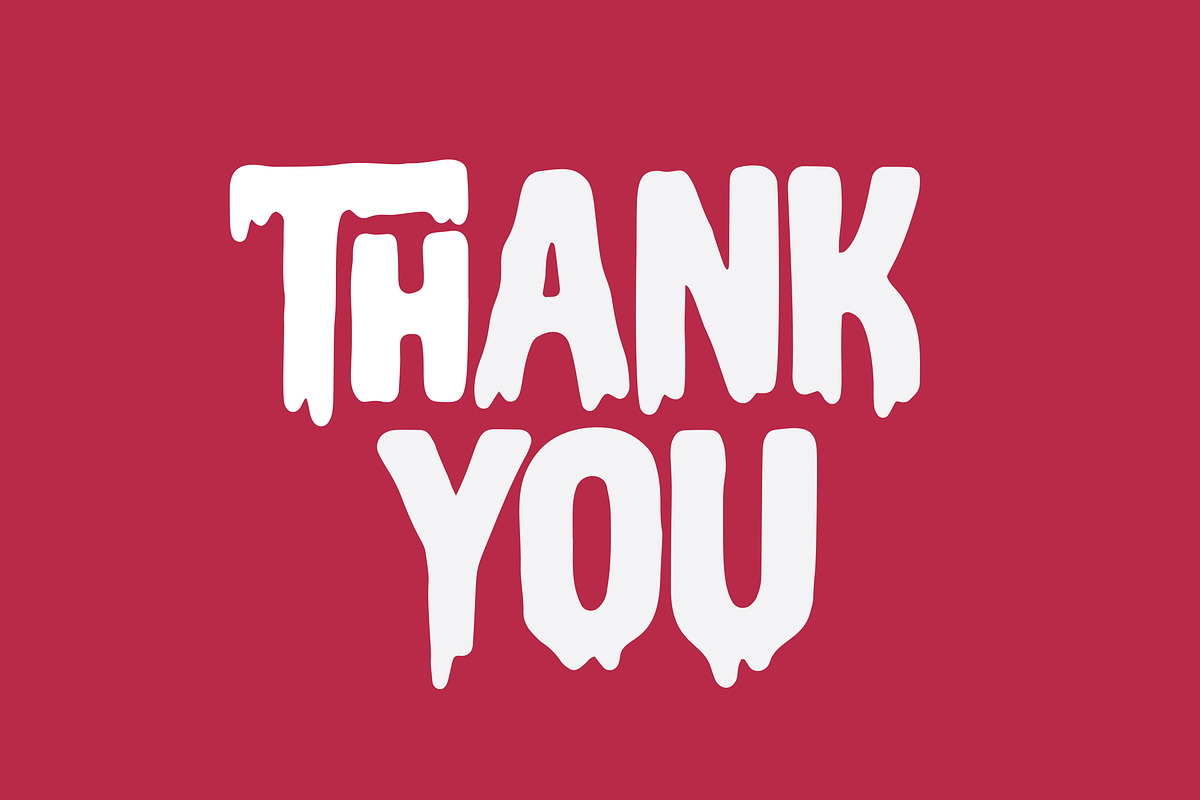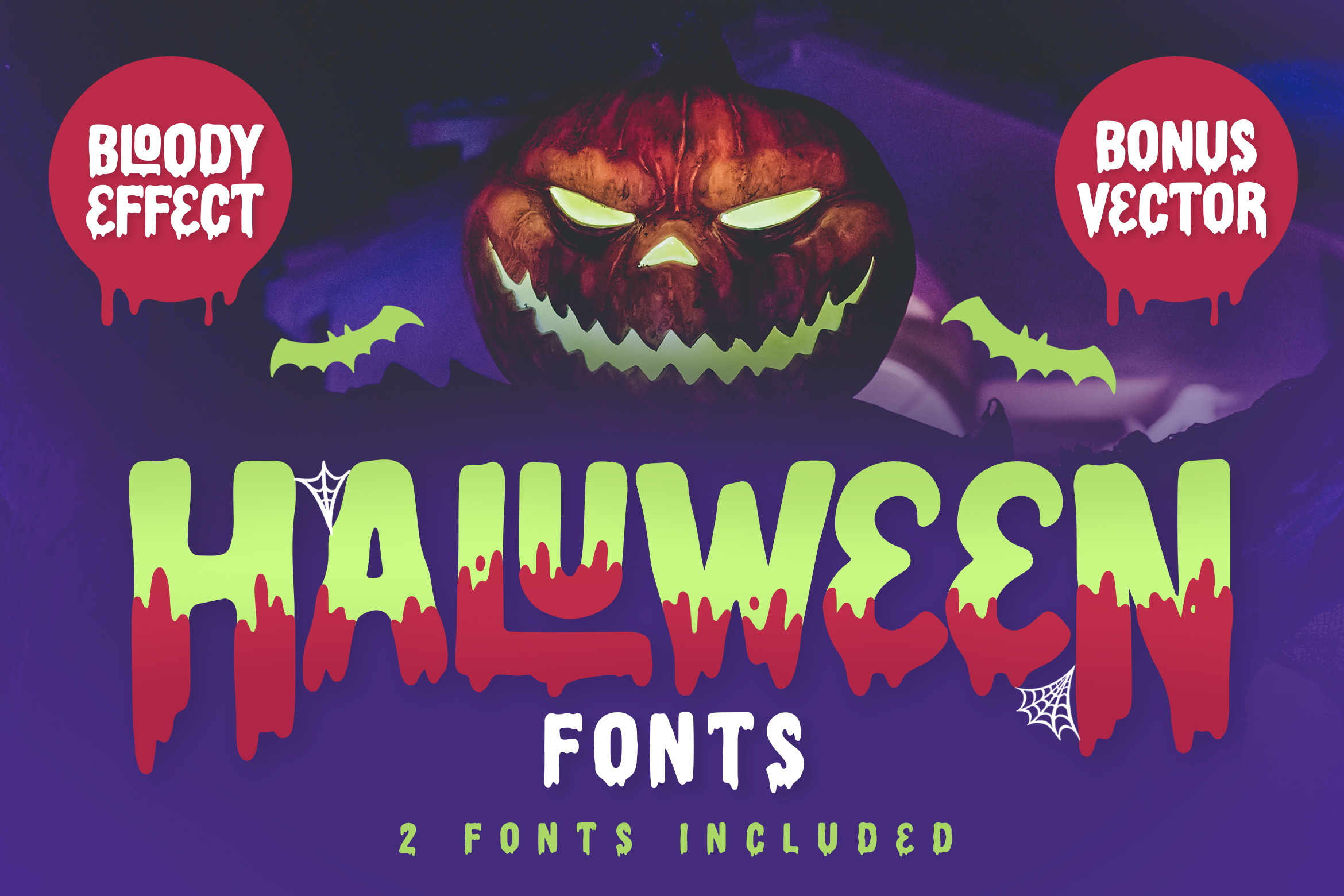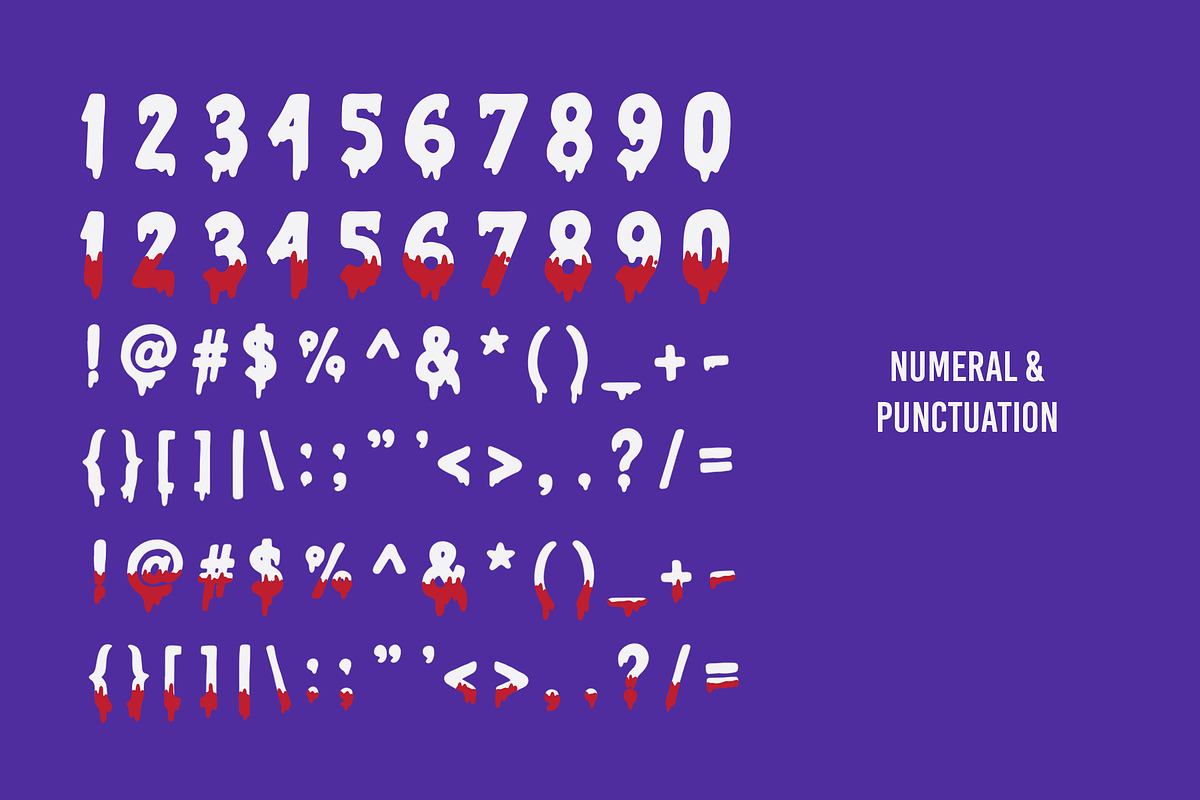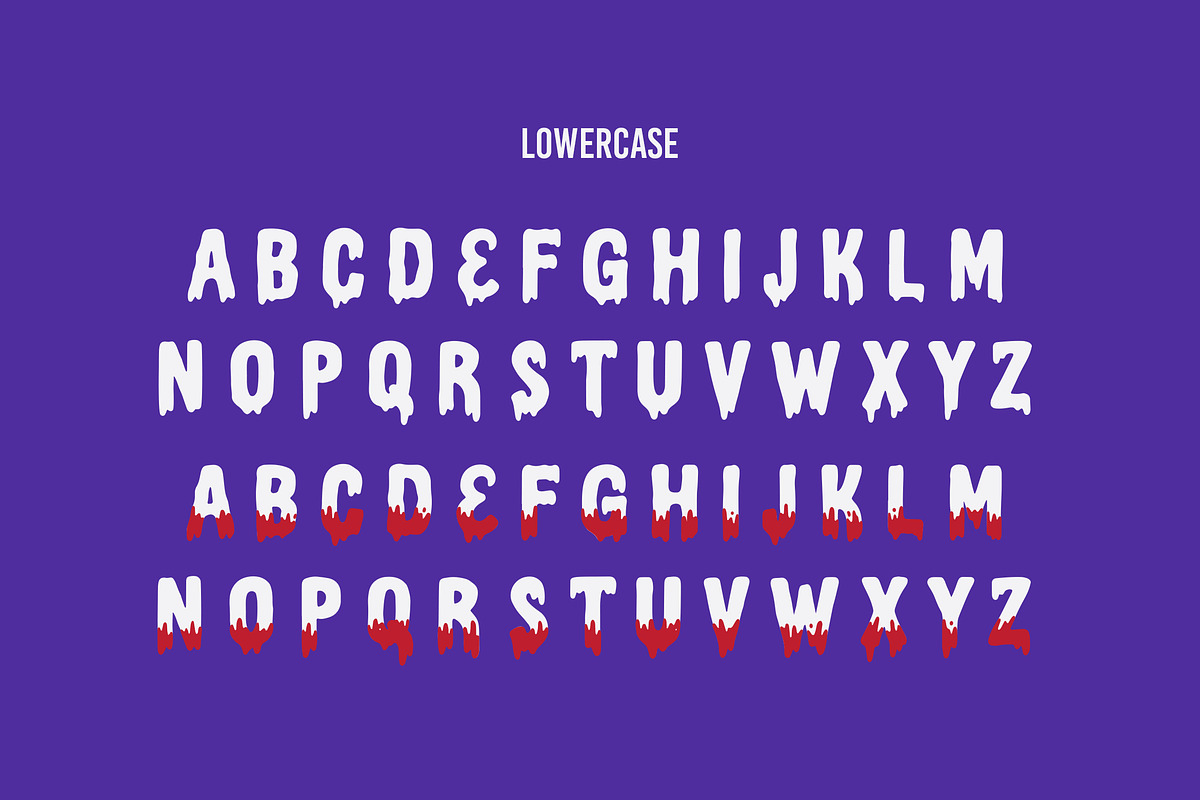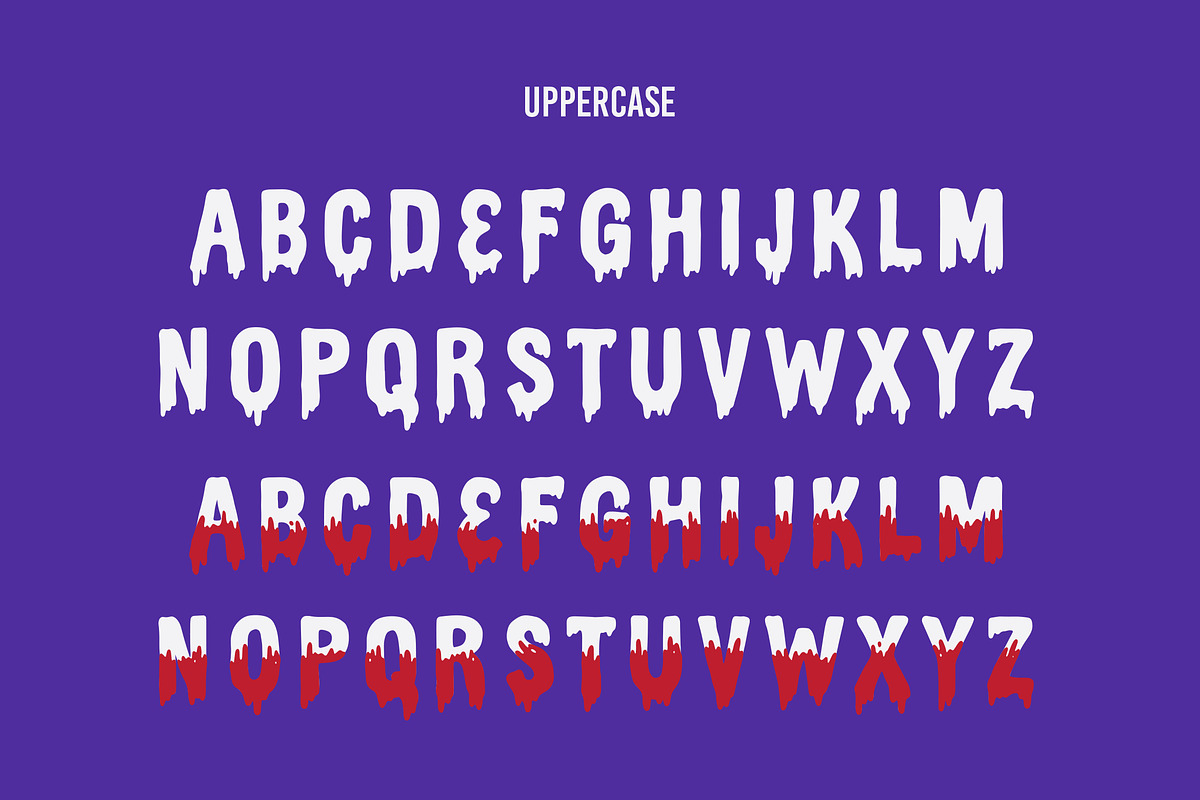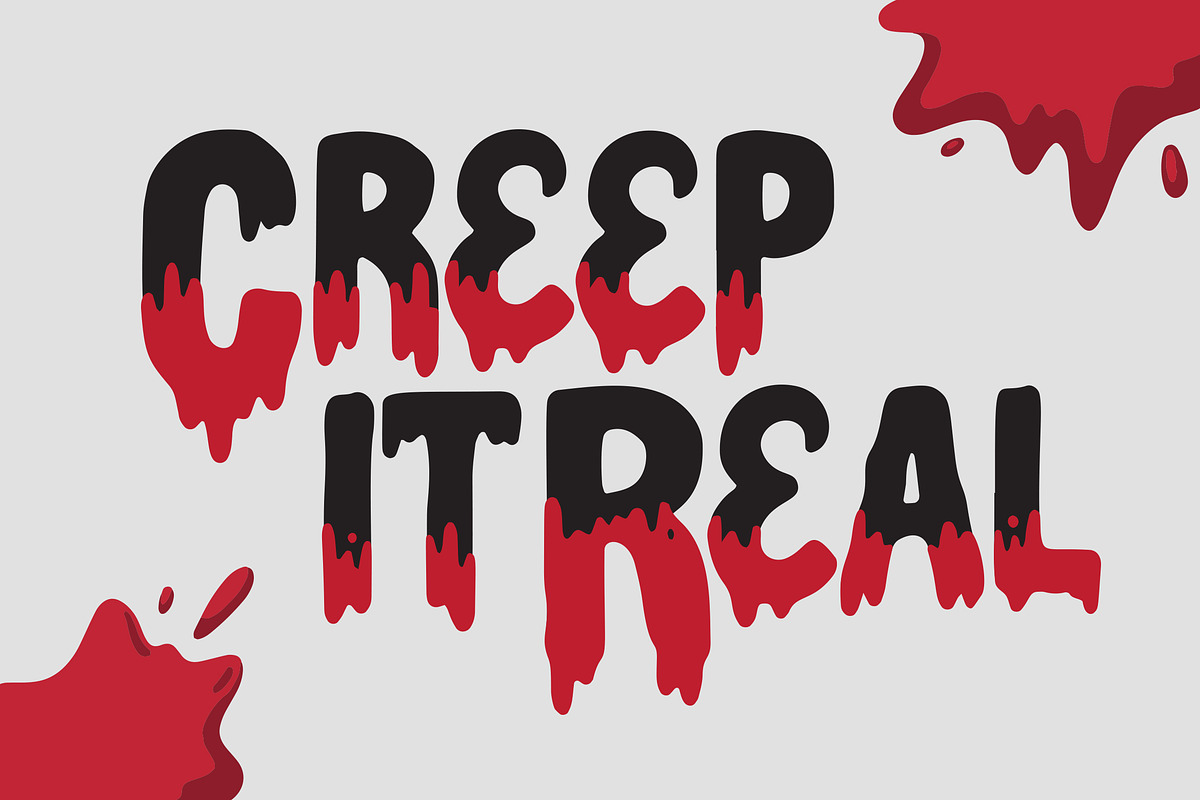
Haluween Fonts | Bloody Effect
Haluween Font Duo
2 FONTS AVAILABLE!
Haluween fonts can be used for various media like a Halloween Party, Christmas event, invitations, posters, movie titles, book titles, social media, logos, branding, and others.
- 36 ligature + 36 ligature blood effect